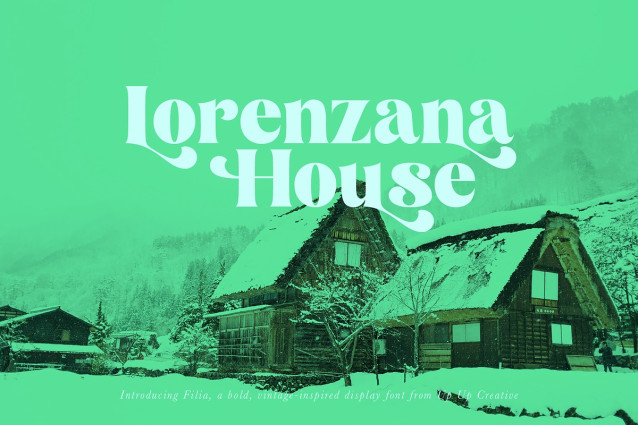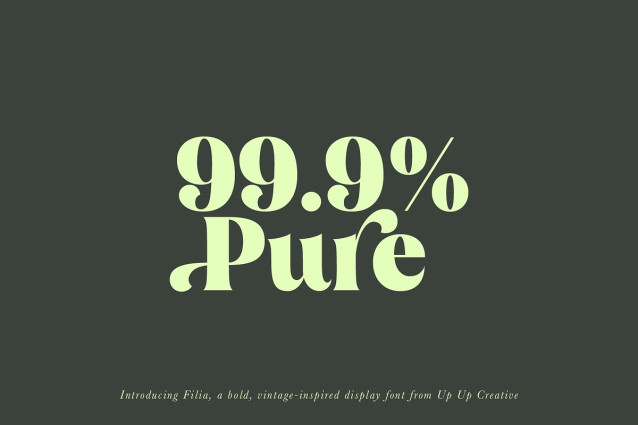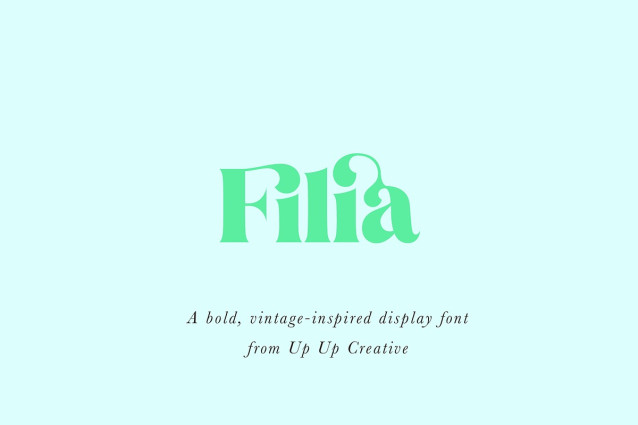
Filia Font
Filia Font a vintage-inspired display font with smooth curves and plenty of OpenType features. Filia is perfect for your next editorial, advertising, branding, book, or invitation project.